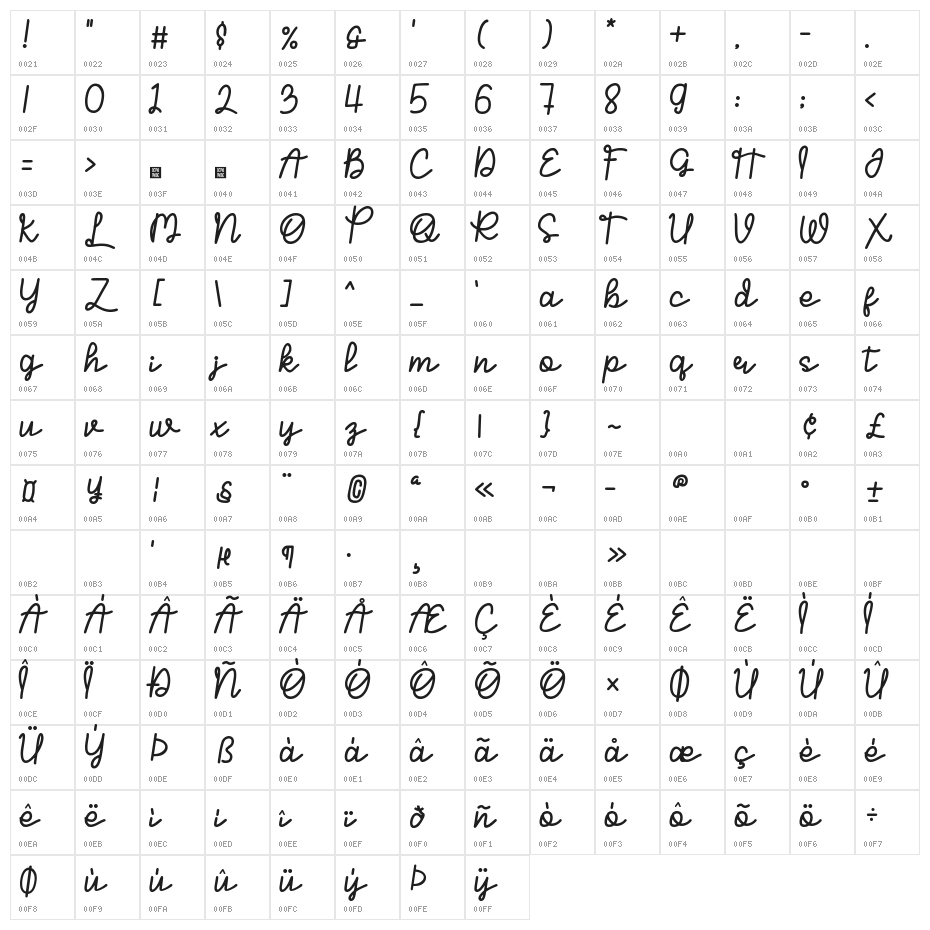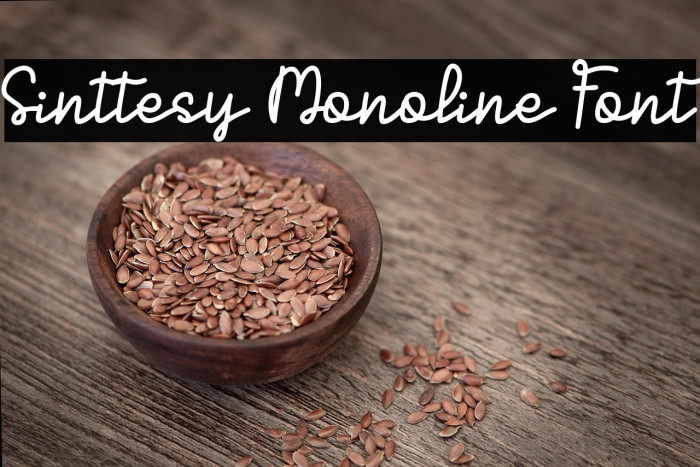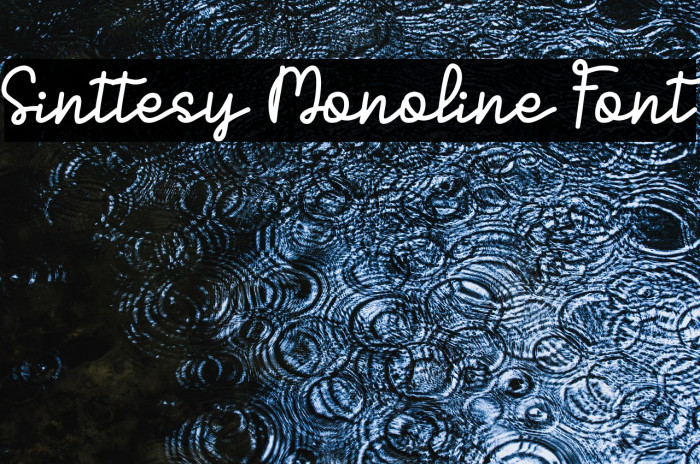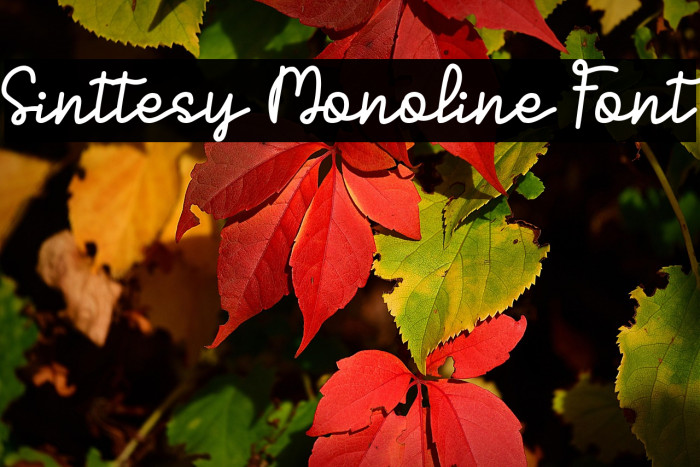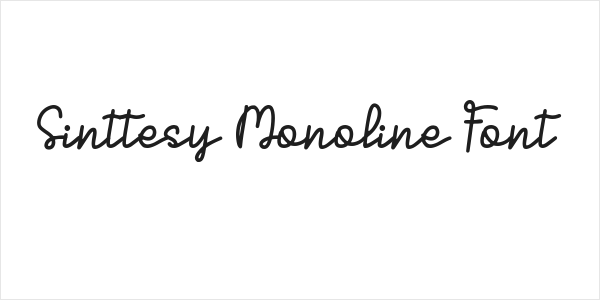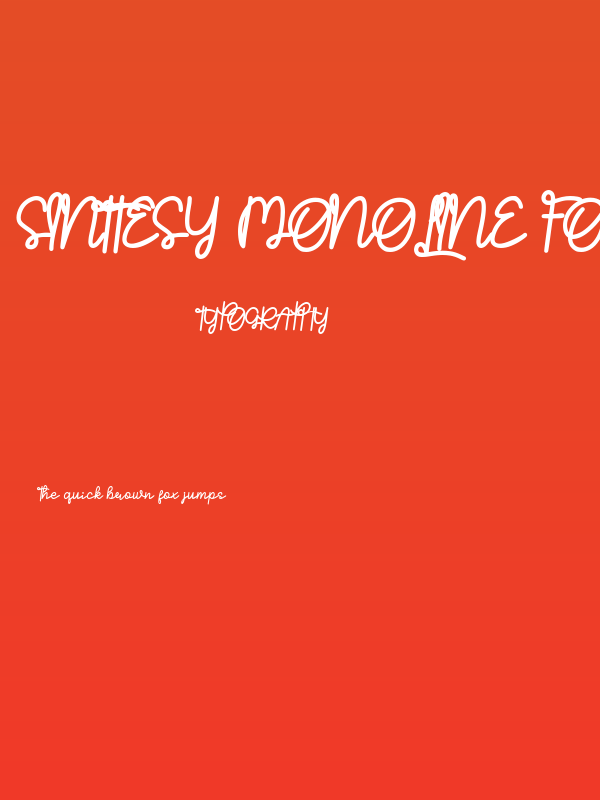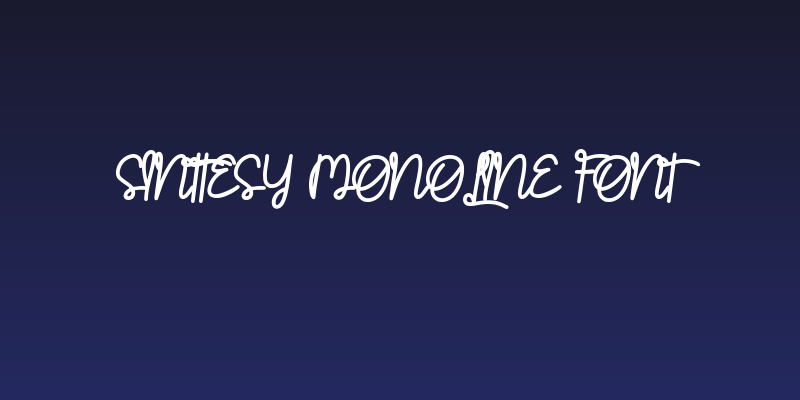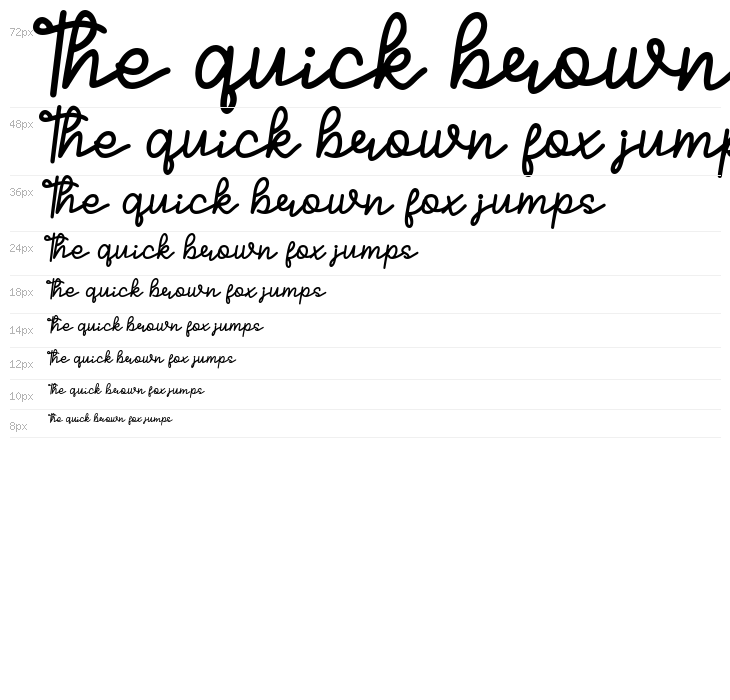
Sinttesy Monoline Font Font
Sinttesy Monoline Font Description
This font features a monoline script style with a playful and casual appearance. The letters are interconnected, giving it a handwritten feel, which is both approachable and stylish. The uppercase letters maintain a consistent height, while the lowercase letters exhibit a slight slant, enhancing the fluidity of the text. The numbers and special characters are designed to complement the overall script style, maintaining the same monoline thickness throughout. This font is ideal for projects that require a personal touch, such as invitations, greeting cards, and branding materials.
| Overall Style | Casual, Handwritten |
| Use Case | Logos, Invitations, Greeting cards |
| Proposed Projects | Ideal for invitations, greeting cards, branding, and personal projects. |